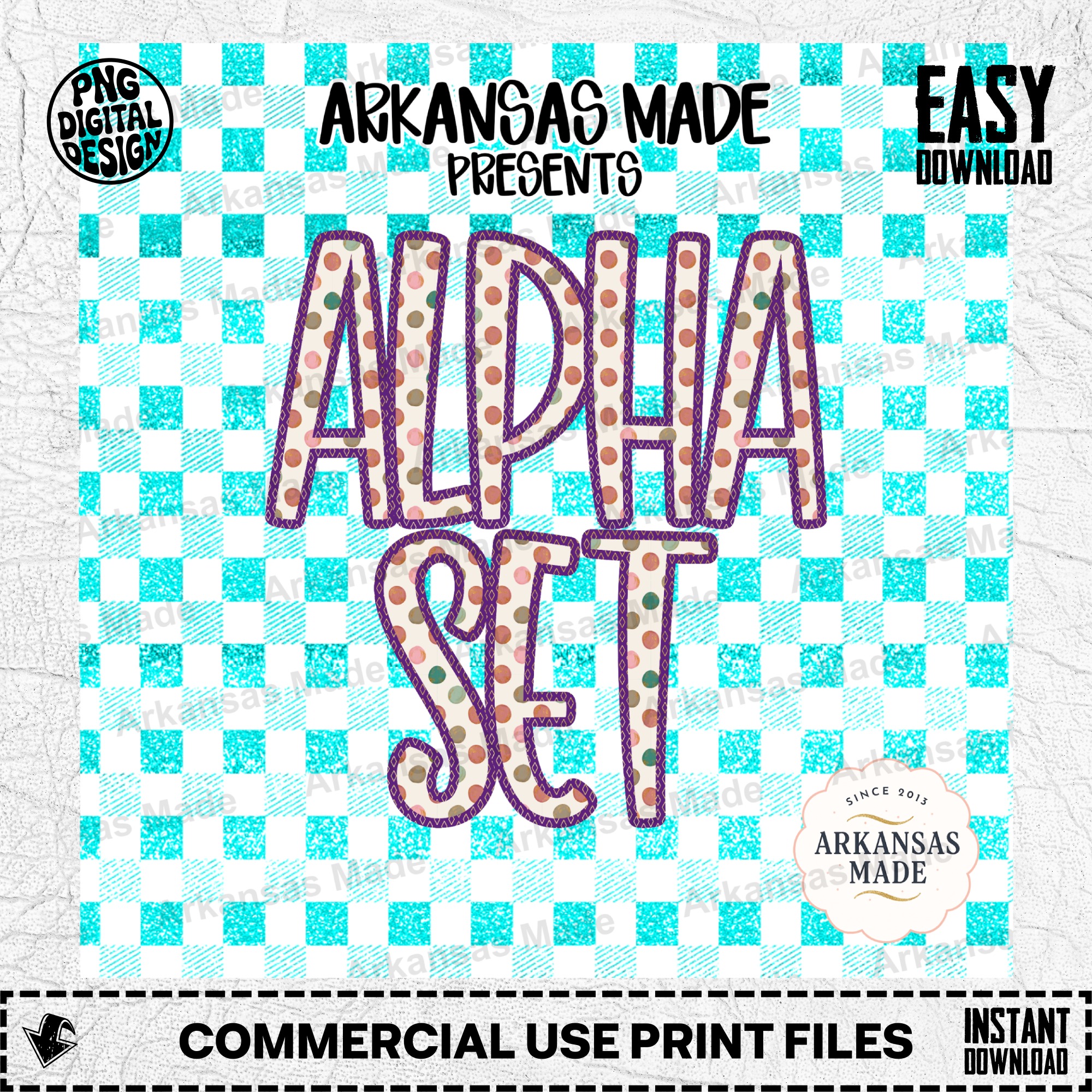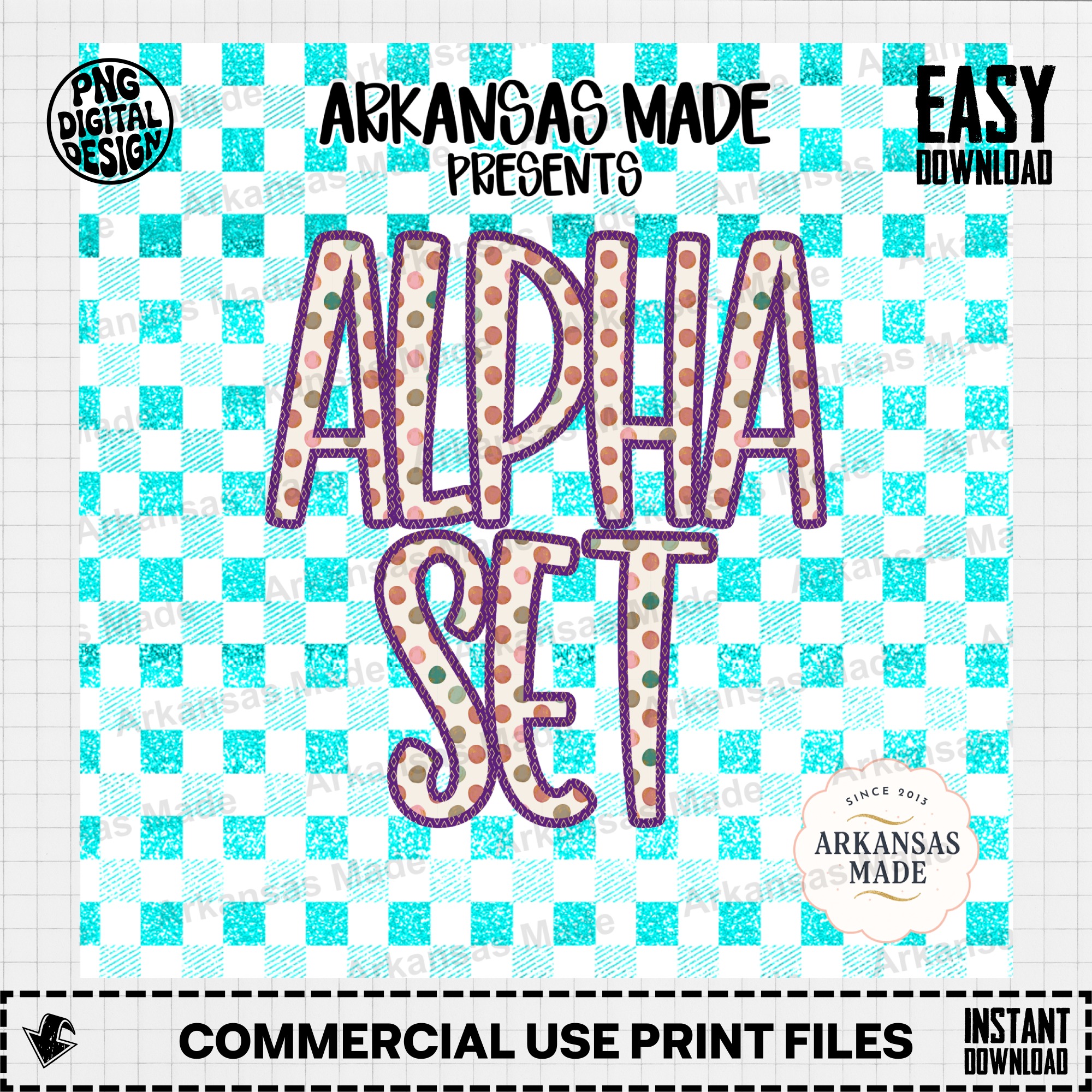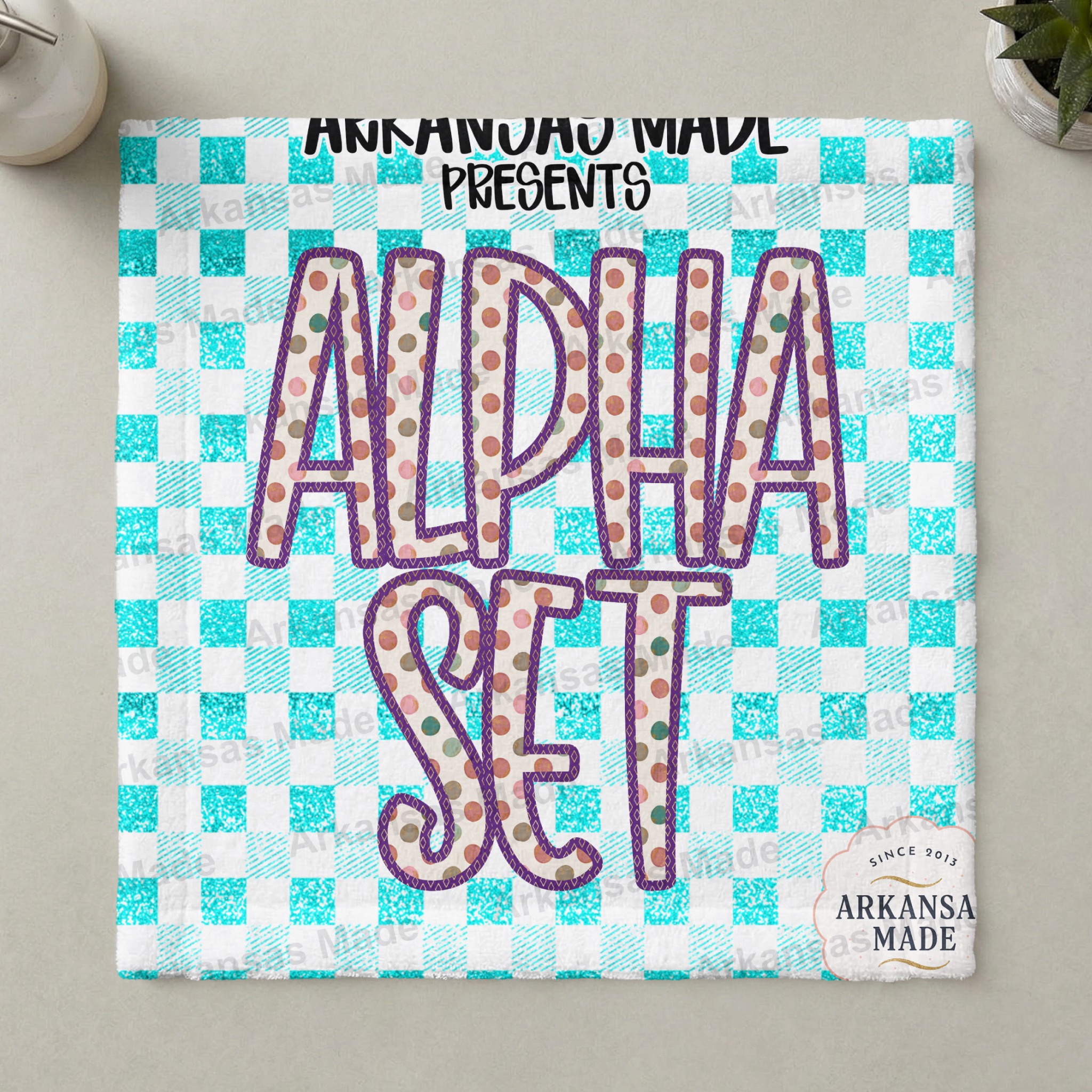
Polka Dot Alpha Set Digital Download, Faux Gold Glitter Letter Font, Teal Buffalo Plaid PNG for Sublimation, Crafter Alpha Pack, Instant
Elevate your creations with this vibrant Polka Dot Alpha Set Digital Download! Featuring faux gold accents and a playful design, perfect for crafters. This unique alphabet PNG pack is ideal for DIY projects, sublimation designs, and personalized gifts. The charming teal buffalo plaid background and bold, patterned letters add a touch of fun to any project. Perfect for small business owners, teachers, and anyone looking to add a custom flair to their designs.